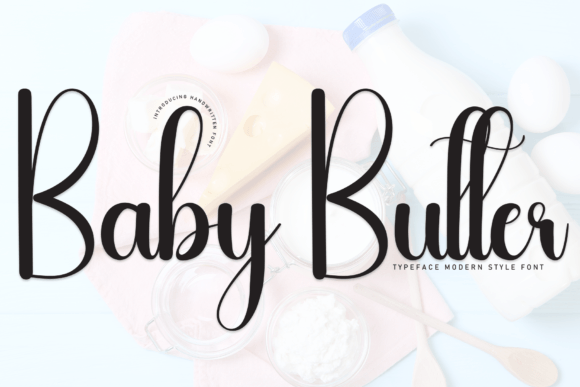
Feast your eyes on Baby Butter Font, a delectable and mesmerizing display font that captivates hearts with its unique lettering. This handwritten font is a testament to sweetness, exuding an aura of playfulness and warmth. As a script font, Baby Butter dances across your screen, enchanting you with its organic, fluid lines. Imagine your creative projects adorned with this font, evoking a sense of whimsy and charm.
Whether you're a seasoned designer or a budding creative enthusiast, Baby Butter Font is your ultimate choice for adding a touch of joy to your designs. Dive into the world of comic lettering, unleashing your imagination as you craft dynamic and captivating stories. From lively posters to engaging social media posts, Baby Butter Font breathes life into your words, ensuring they leave a lasting impression.
With Baby Butter Font, you're not simply downloading a font; you're embracing a world of endless possibilities. Its versatility knows no bounds, adapting seamlessly to a myriad of creative endeavors. Envision your wedding invitations adorned with Baby Butter's elegant strokes, adding a touch of heartfelt charm to your special day. Create greeting cards that radiate warmth and cheer, conveying your heartfelt sentiments in a style that resonates with your loved ones. Let your imagination run wild as you design posters, flyers, and logos that captivate audiences with their playful, inviting appeal.
Step into the realm of digital artistry and let Baby Butter Font transform your designs into visual masterpieces. Craft eye-catching social media posts that demand attention, urging your followers to engage and share. Unleash your creativity in the world of branding, creating logos and visual identities that embody the essence of fun and playfulness. With Baby Butter Font, your designs transcend the ordinary, becoming extraordinary expressions of your artistic vision.
Don't settle for ordinary fonts; embrace the extraordinary with Baby Butter Font. Its sweet and friendly nature will add a touch of magic to your creative projects, leaving an indelible mark on your audience. As a creation of William Jhody, Baby Butter Font carries the legacy of excellence, embodying the passion and dedication of a true font artisan. Experience the joy of using a font that feels like a warm embrace, guiding your creativity to new heights.